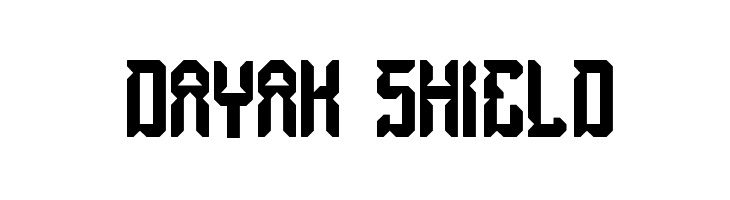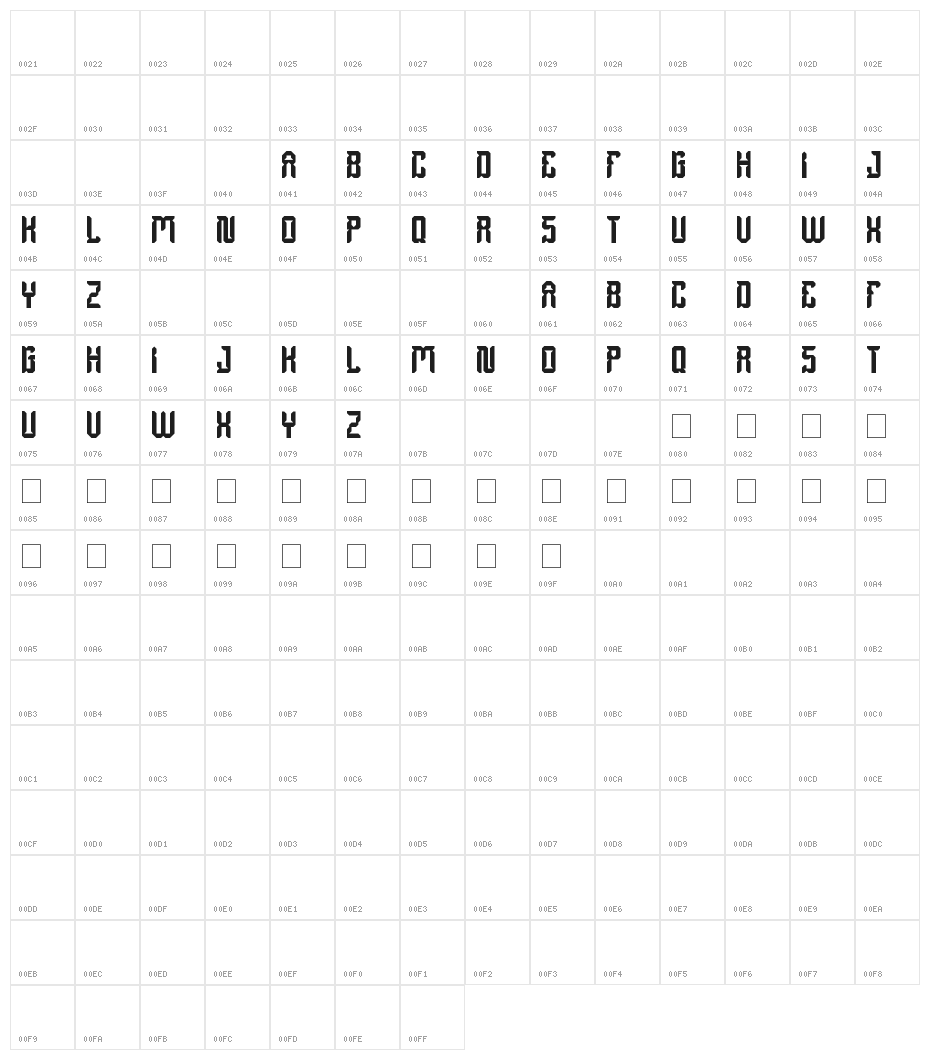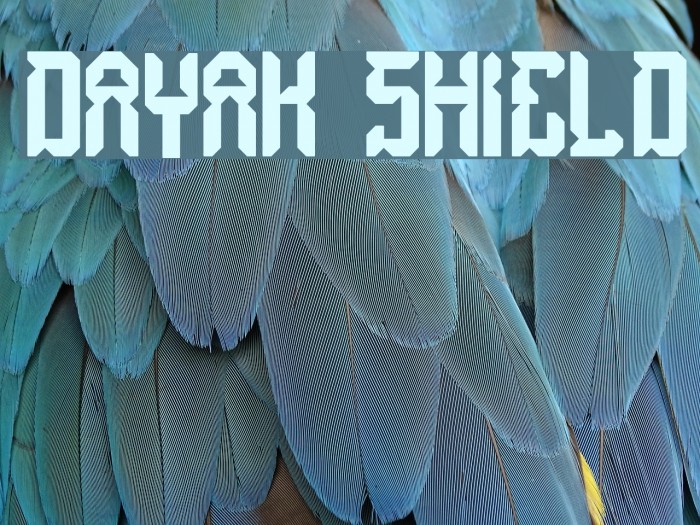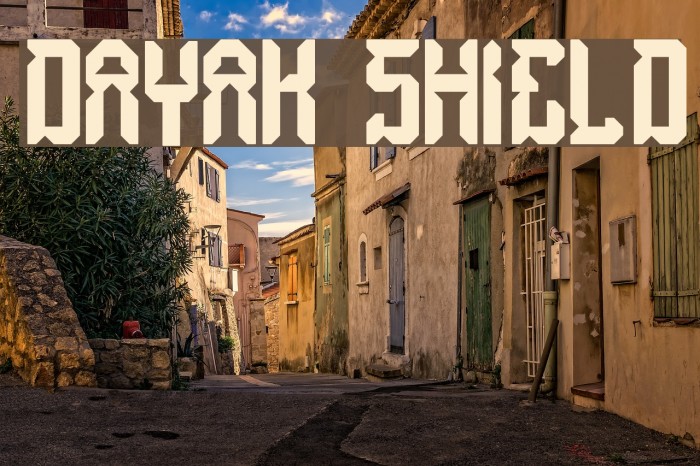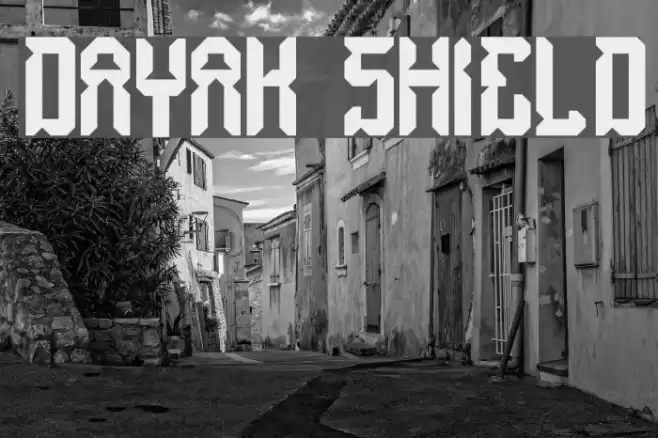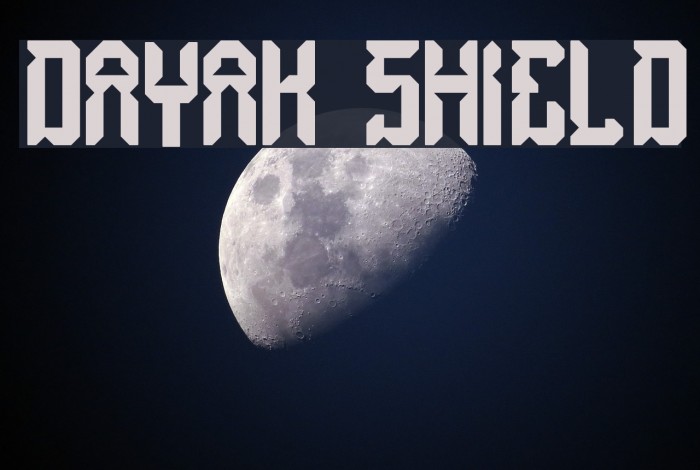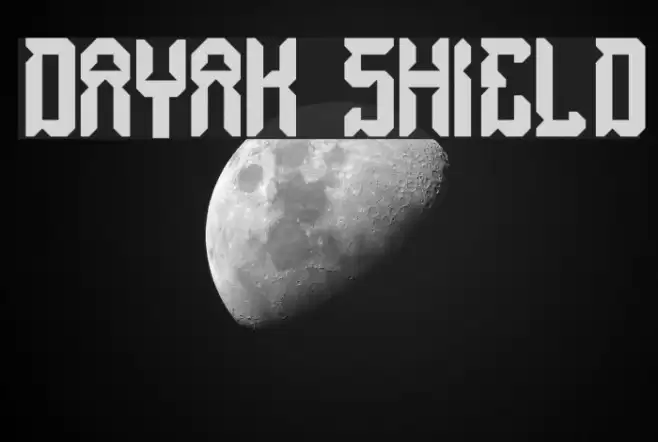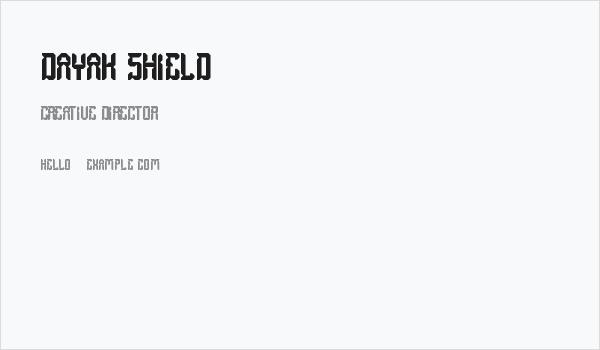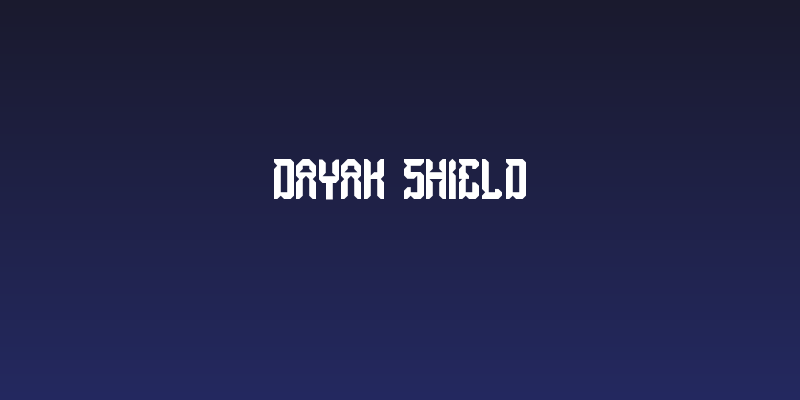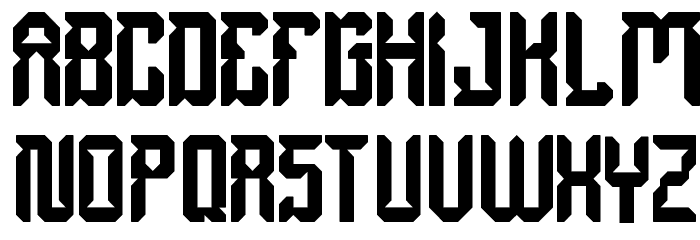
dayak shield Font
dayak shield Description
This font features a bold and angular design with a strong geometric influence. The characters are constructed with sharp edges and a blocky appearance, giving it a robust and commanding presence. The uppercase letters are particularly striking, with a uniform height and width that create a cohesive look across the alphabet. The font's design is reminiscent of traditional tribal patterns, which adds a unique cultural flair. Its boldness and distinct style make it suitable for attention-grabbing headlines or logos that require a powerful visual impact.
| Proposed Projects | Ideal for use in branding, posters, and signage where a strong, distinctive look is desired. |